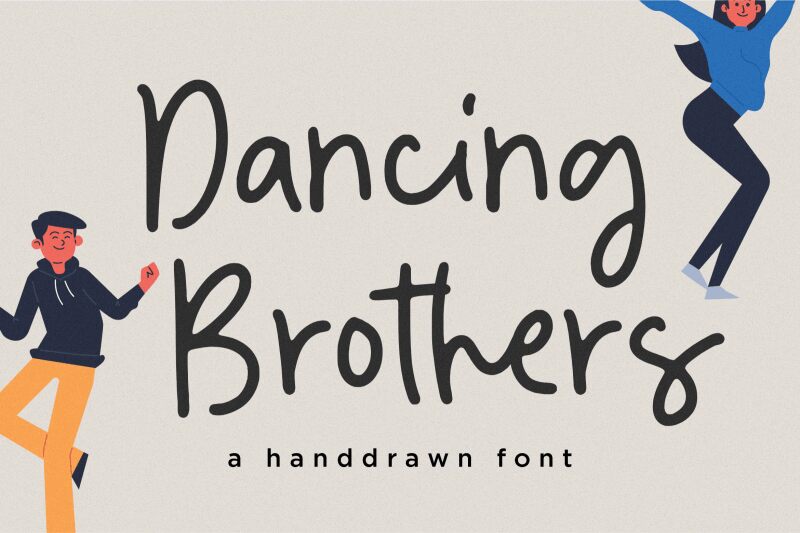
Dancing Brothers
Dancing Brothers font is a free handwritten font from Balpirick Studio with an aesthetic that can only be described as modern. Its silhouette is marked by an elongated letter design, delicate thin lines, and a casual overall appearance. If you’re looking for a typeface that will help you share your own words in style, this is the one to consider.
Discover an array of personal and professional usages for Dancing Brothers. Write branding projects, decor items (pillows and mugs), invitation cards, greeting cards, title headlines or subheadings using this stylish resource to achieve impeccable final results each time!